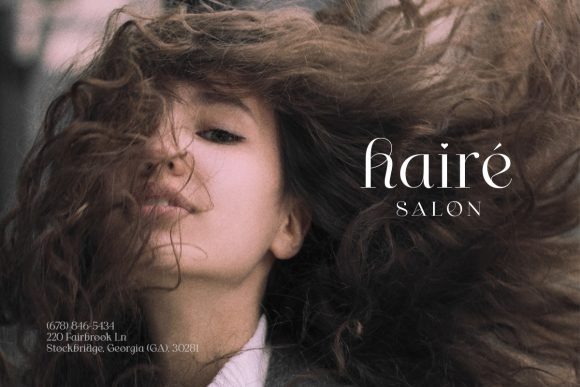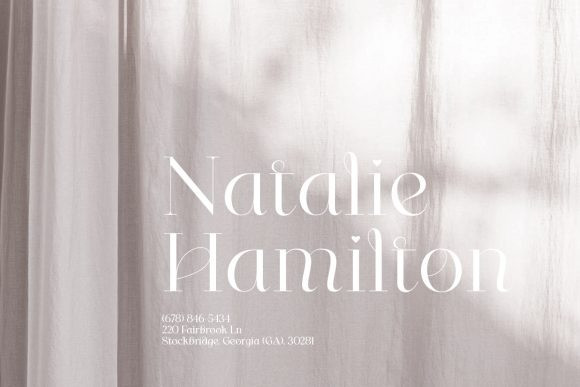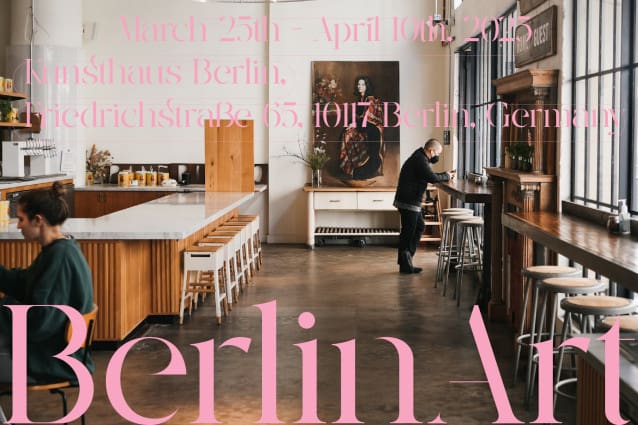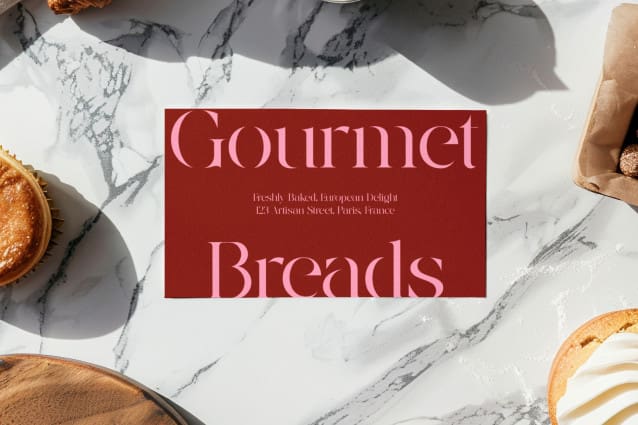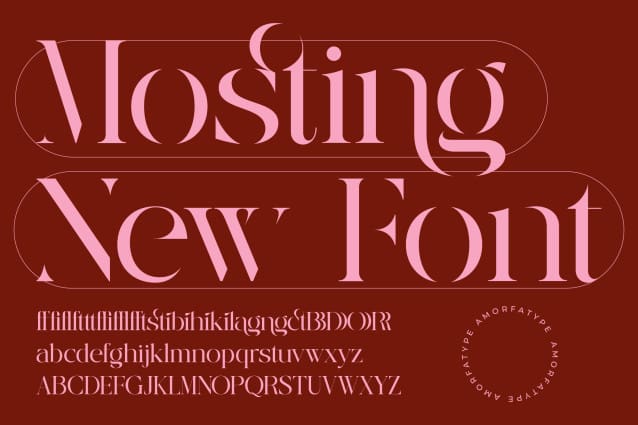
Mosting Font
Mosting Font is a classy serif font that brings elegance to your text. With its sleek lines and sophisticated curves, it adds a touch of refinement to any project. Perfect for fashion magazines, stylish invitations, or upscale branding, it exudes confidence and sophistication. Whether you’re aiming for a timeless look or a modern edge, this font is sure to elevate your design with its understated elegance.